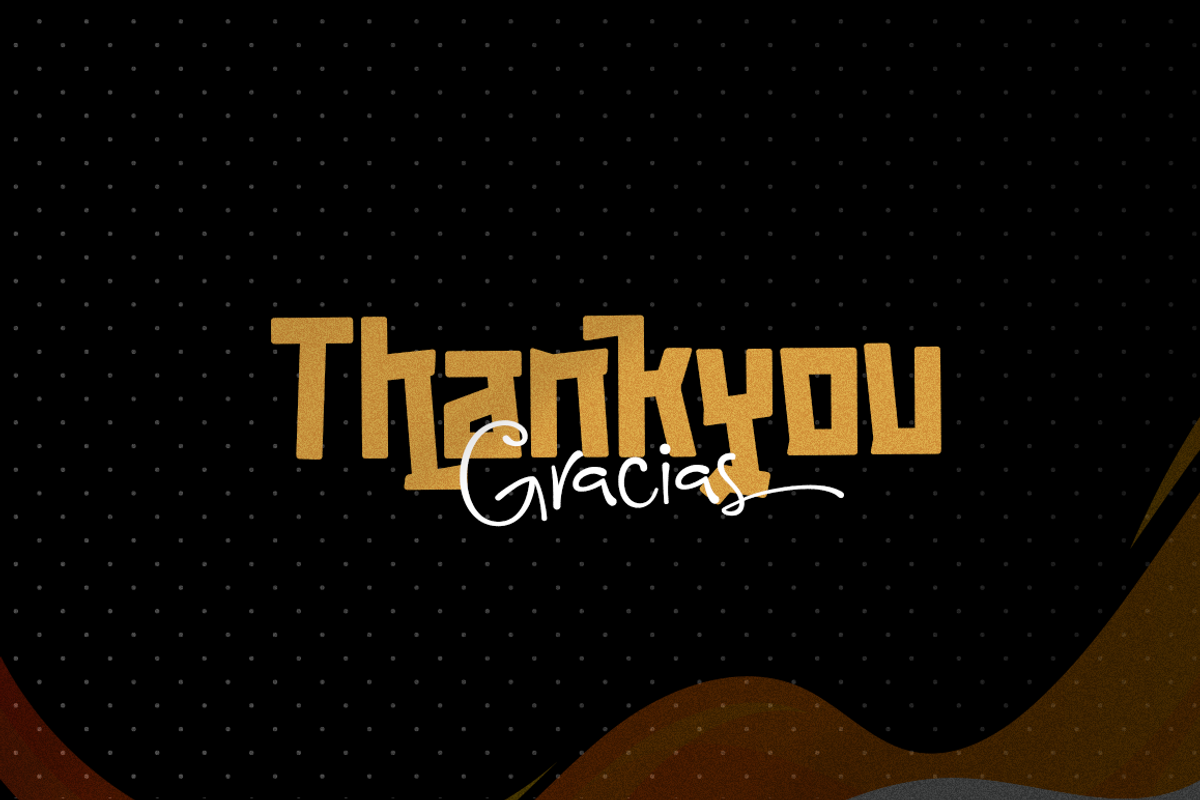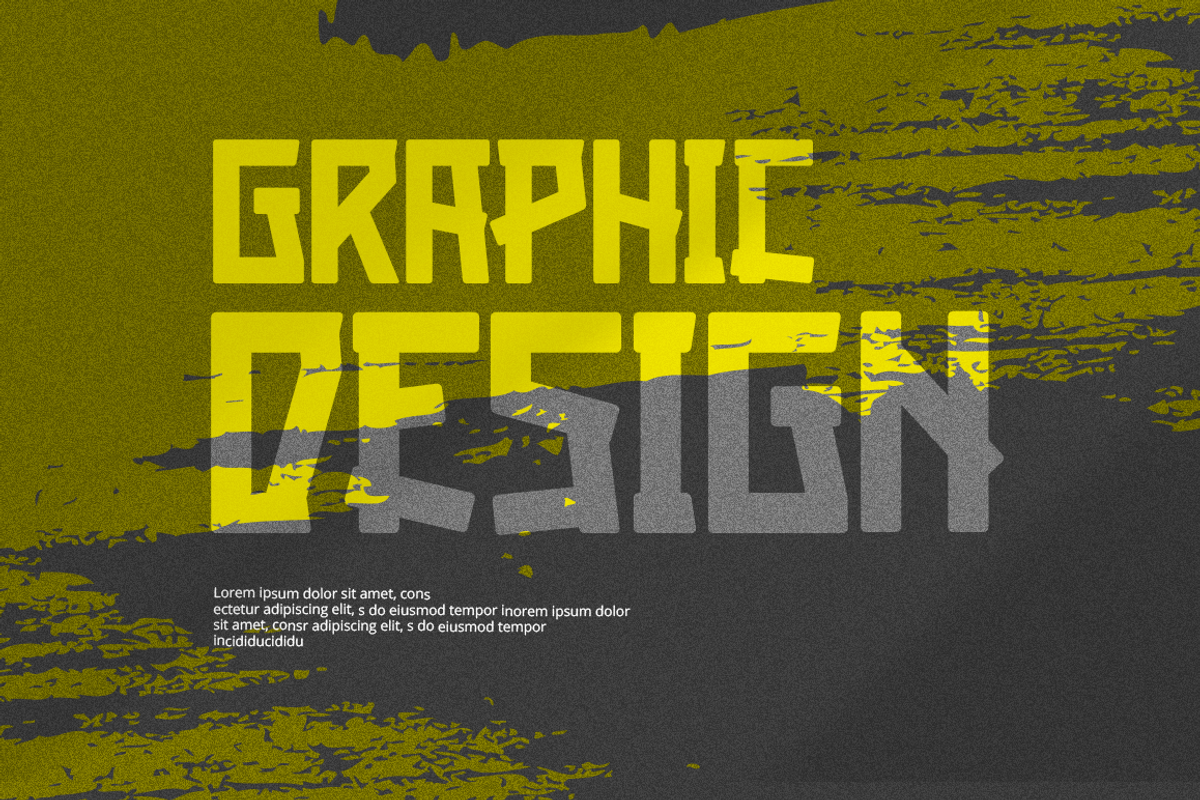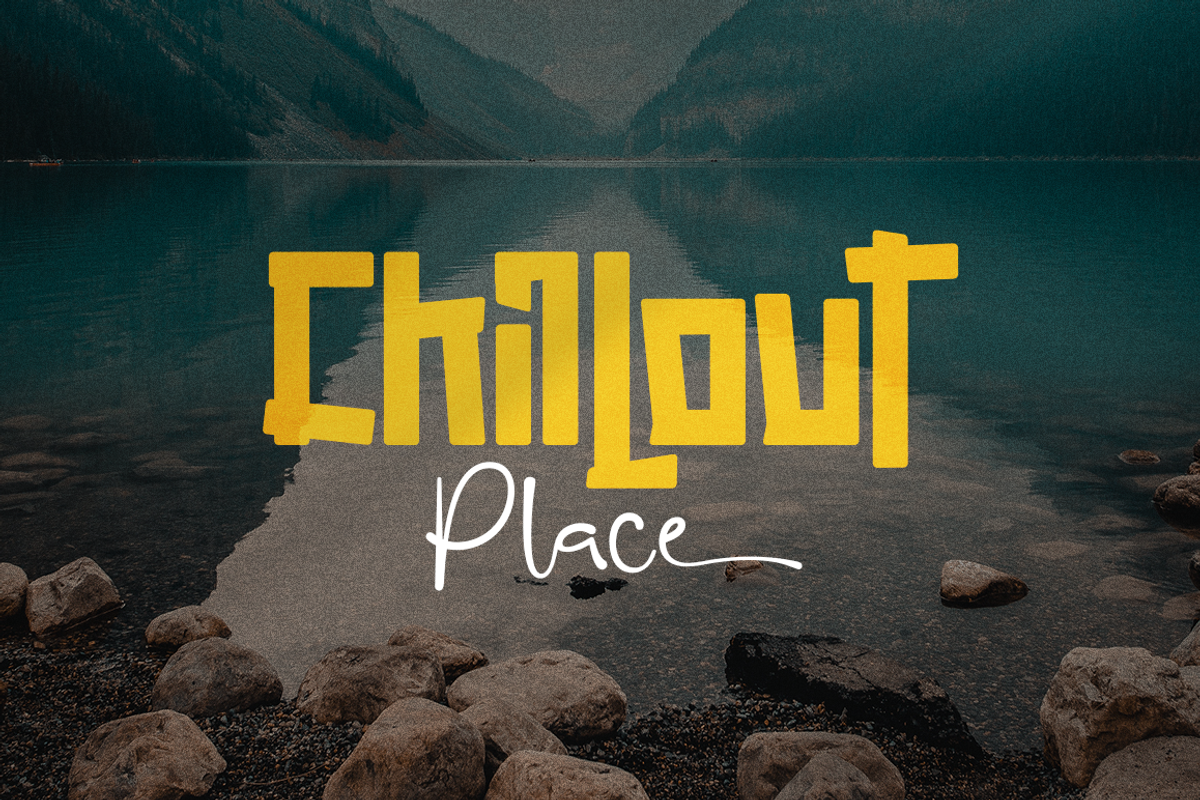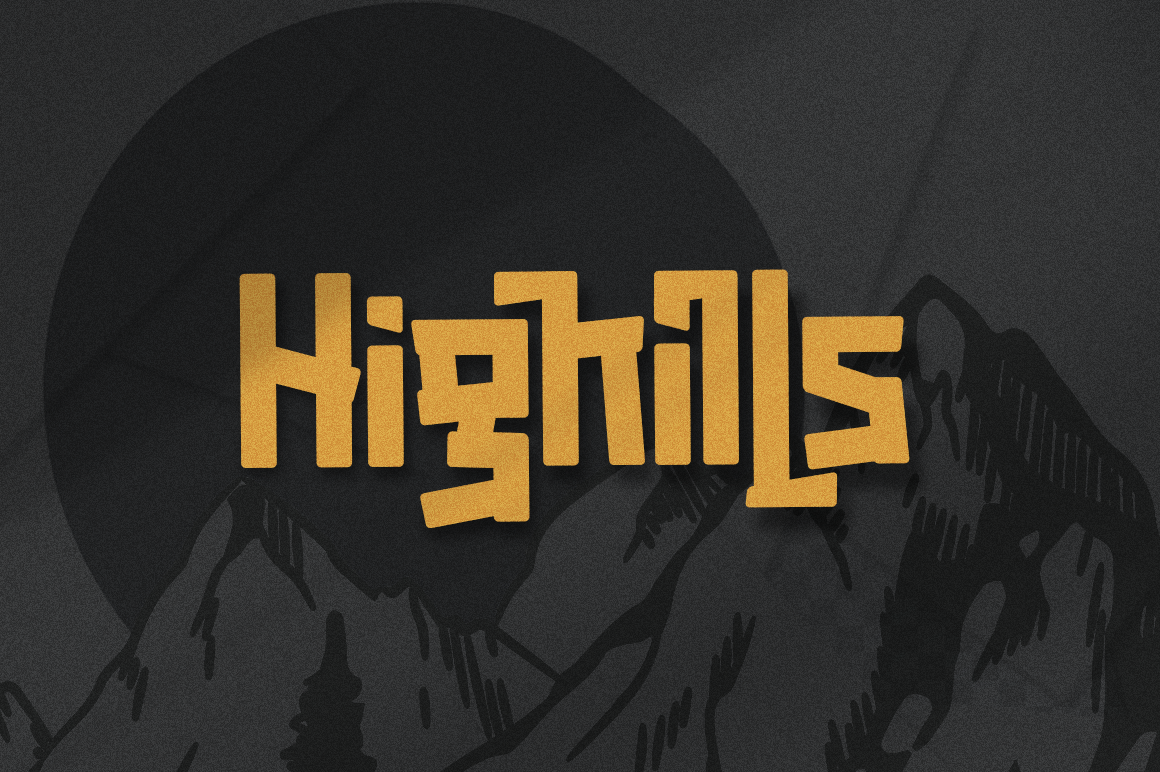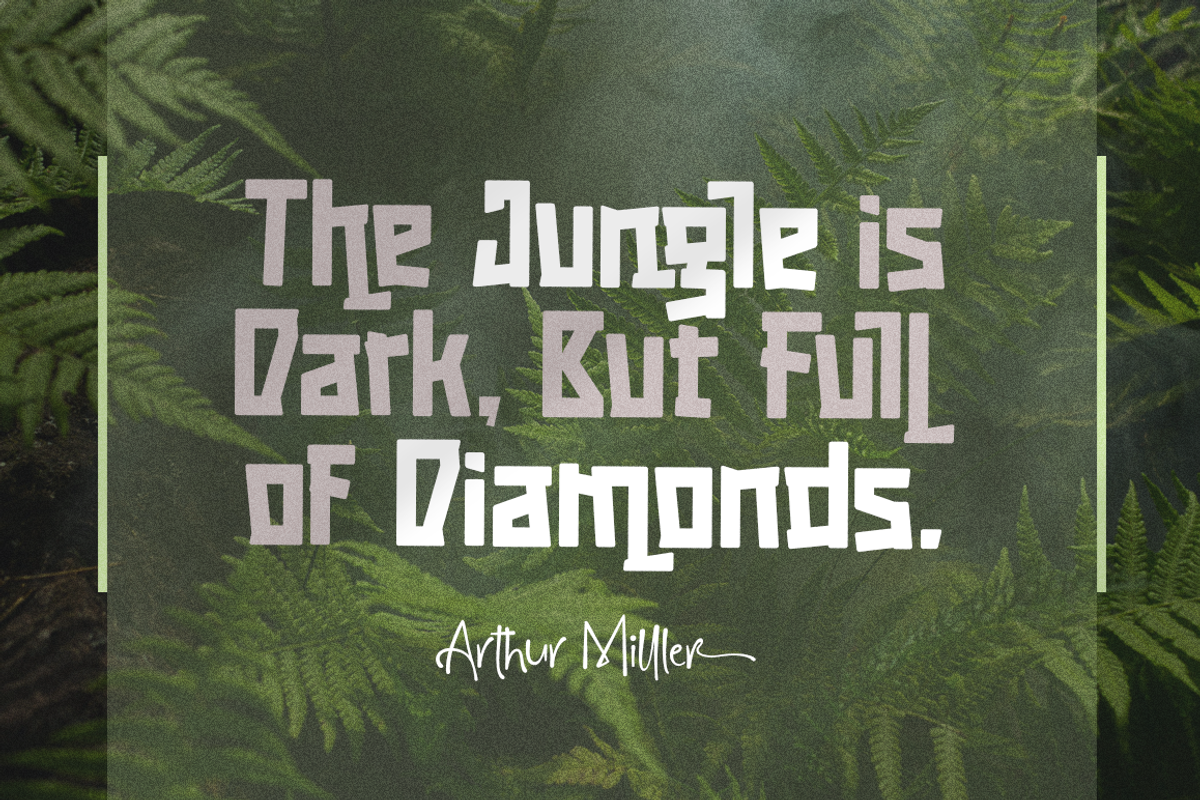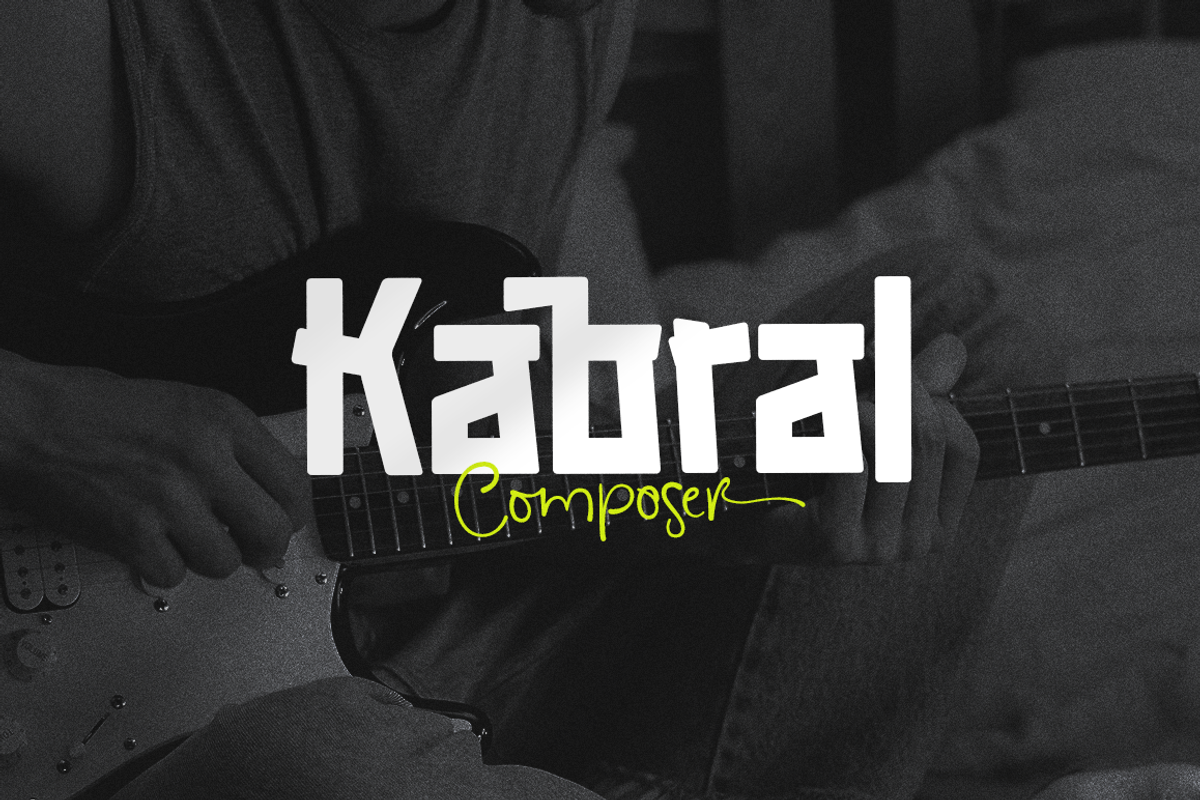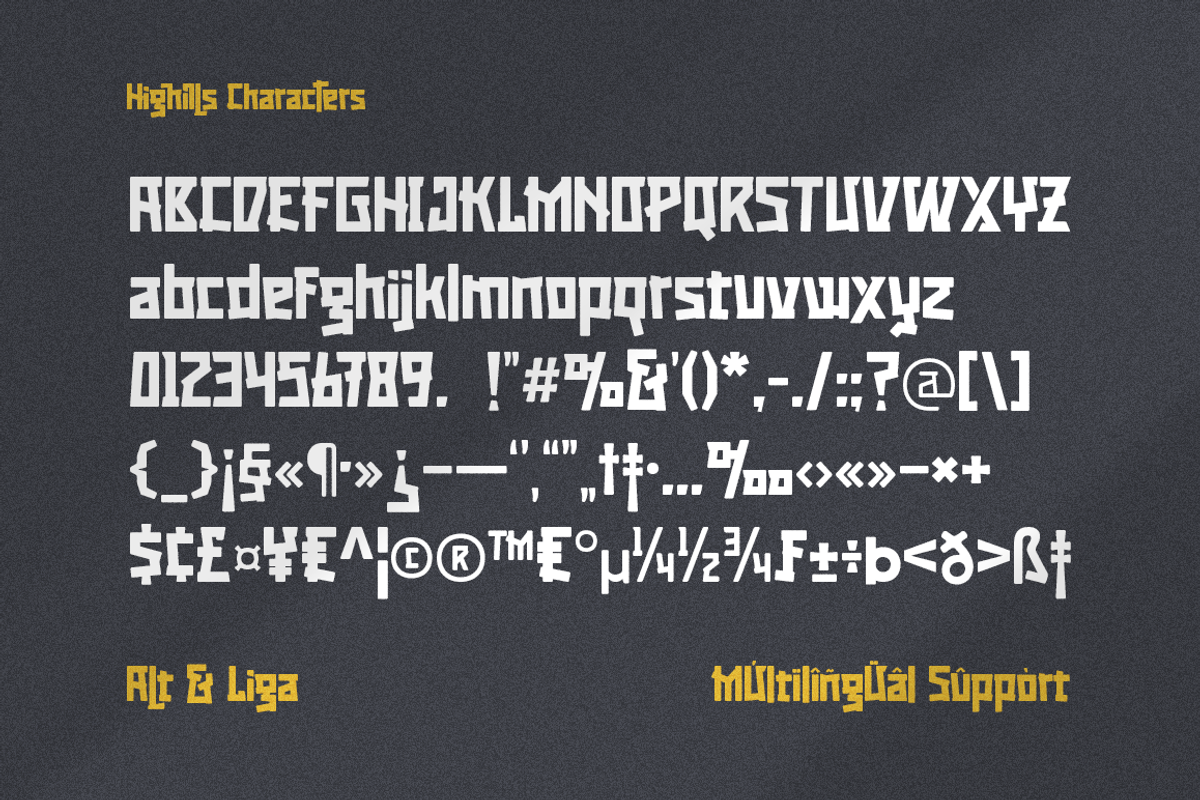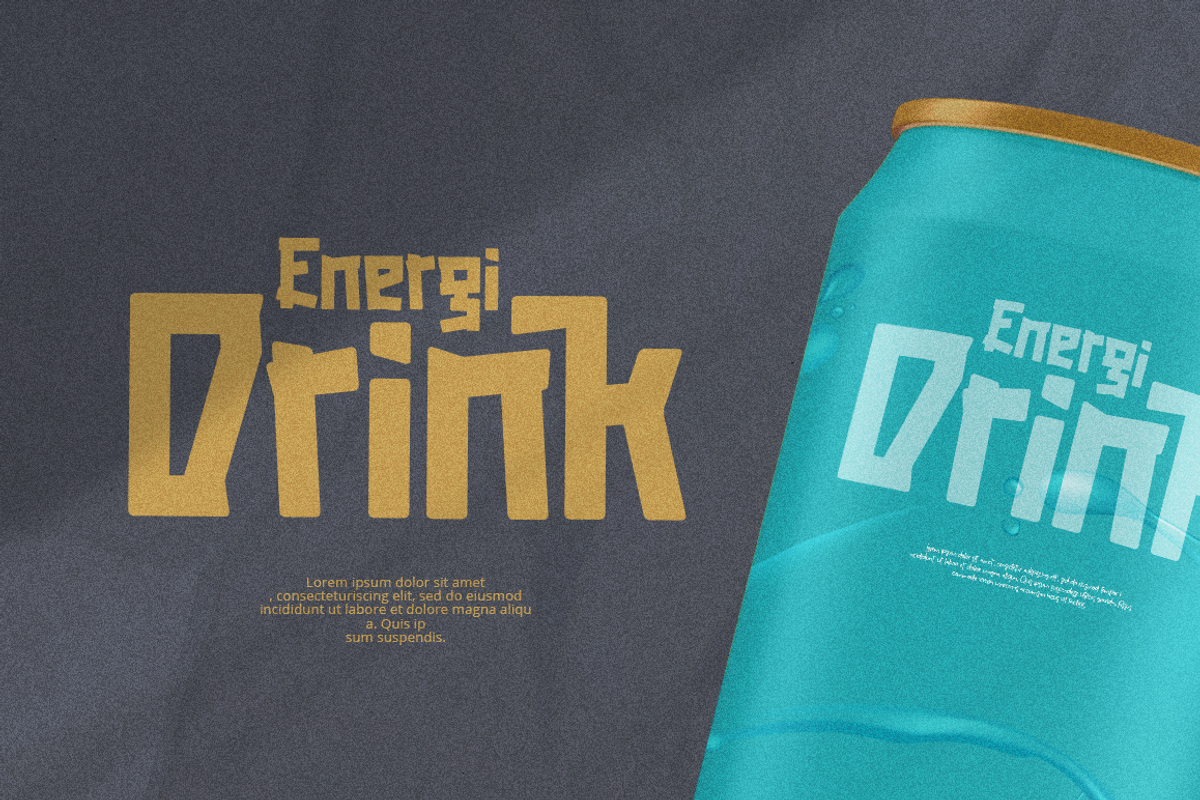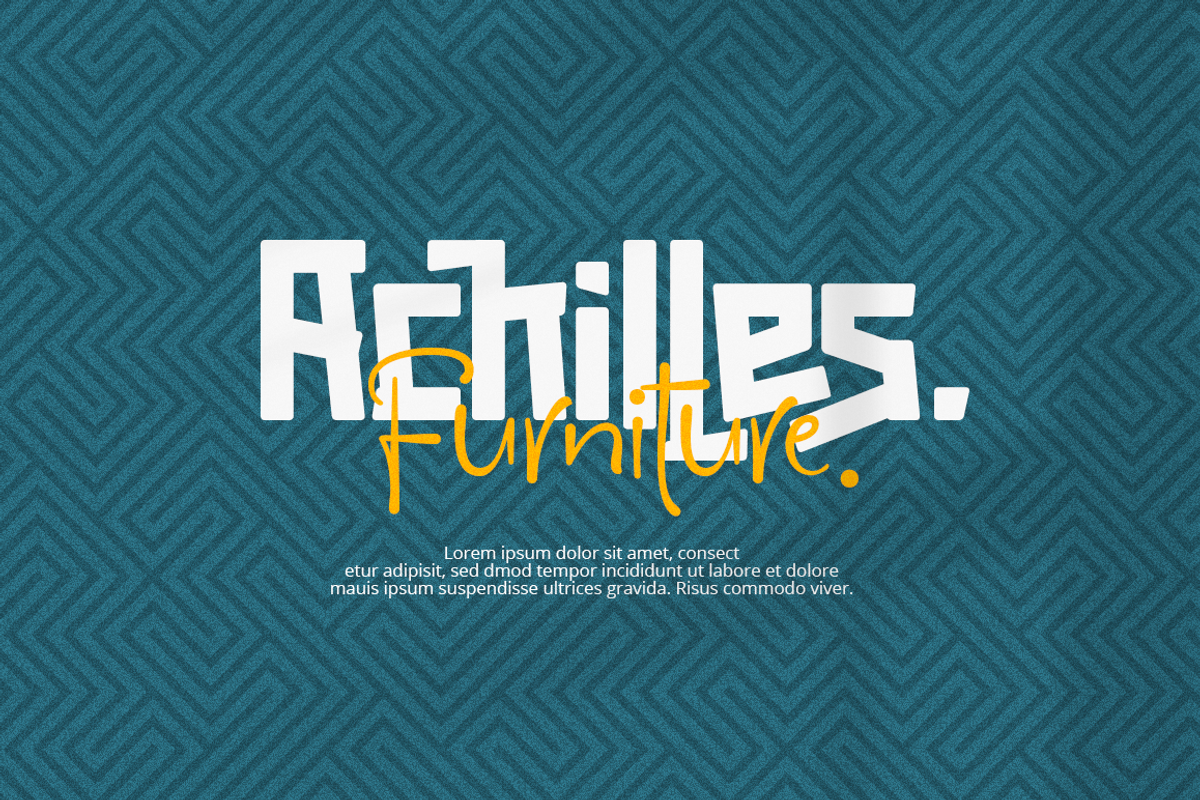
Highills Font
Highills is awesome bold decorative font. created in rounded corner that give this font a tough and calm feel. this font has s good looking as header and as text both. Highills is fit perfectly for logotype projects, movie posters, id card, social media posts, posters, books, and many more.
- Basic Latin Glyphs
- Uppercase and Lowercase Letters
- Alternates and Ligatures